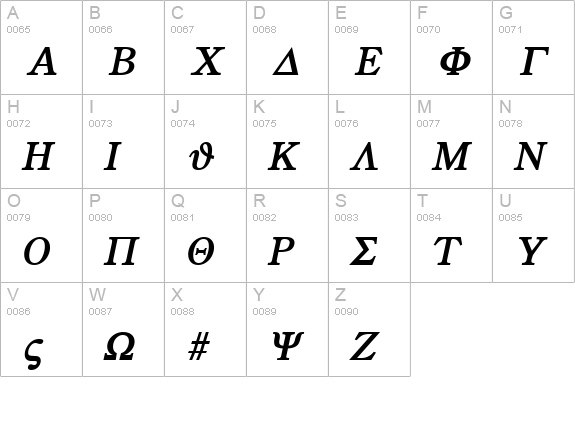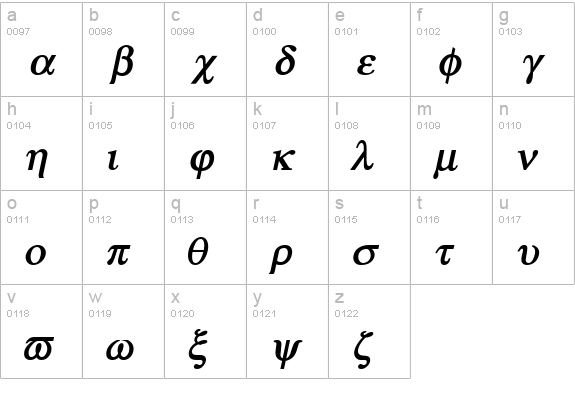
Greek BoldItalic Font Details
Introducing the exquisite Greek BoldItalic font, a stunning typeface that exudes elegance and sophistication. This font combines the boldness of Greek lettering with a touch of italic flair, creating a unique and eye-catching design. Perfect for adding a touch of Greek charm to your projects, this font is ideal for headers, titles, and other prominent text elements. What makes this font even more appealing is that it is available for free download at FontsMarket.com. Yes, you read that right - you can easily access this beautiful Greek BoldItalic font without any cost. So why wait? Add a touch of Greek style to your designs today with this amazing font!